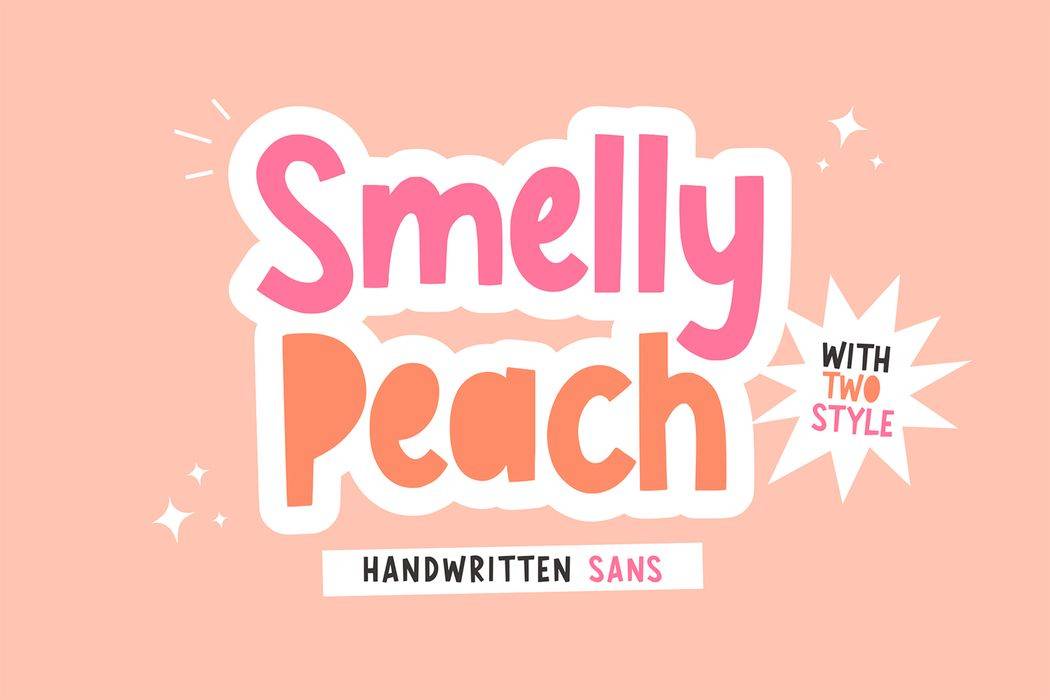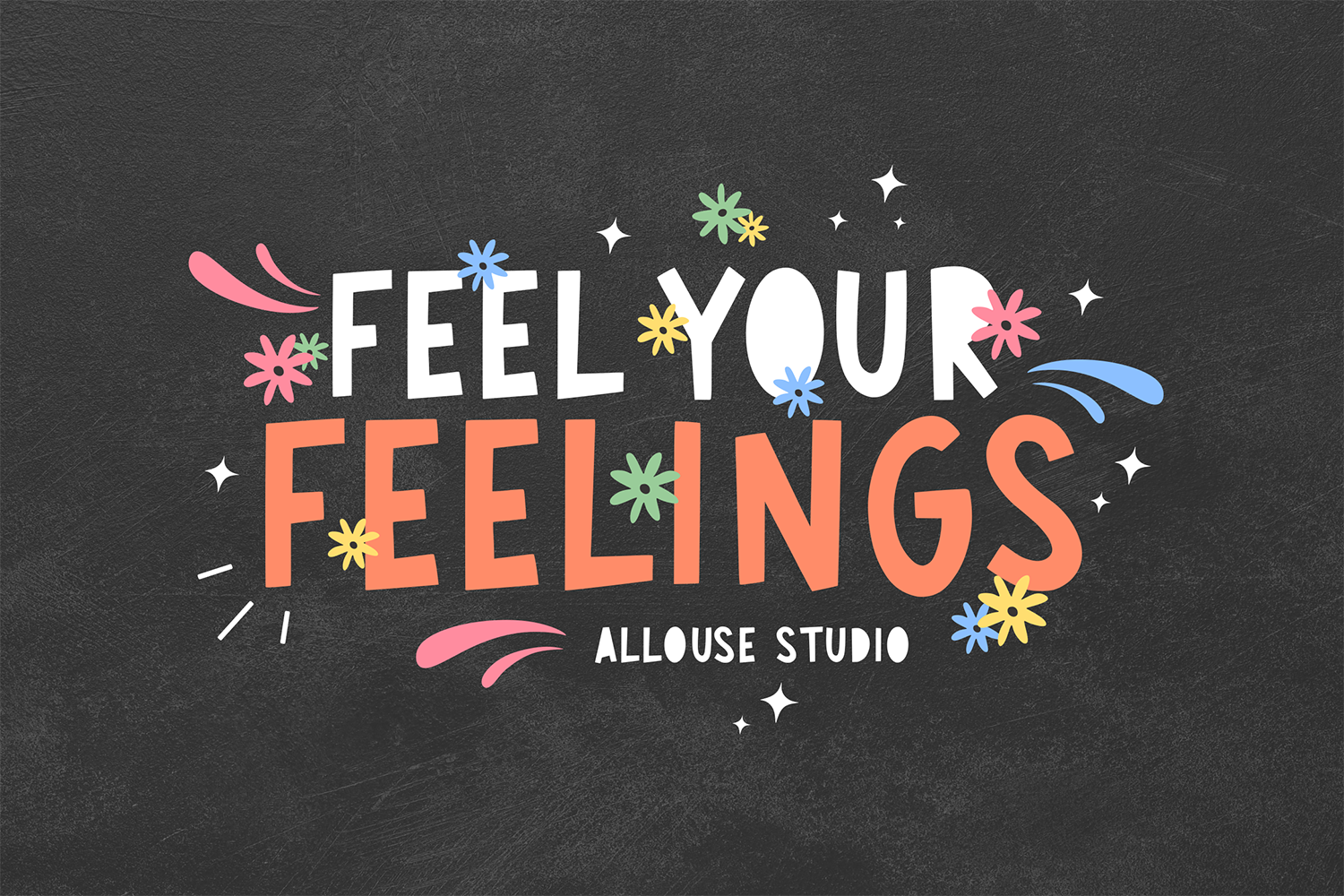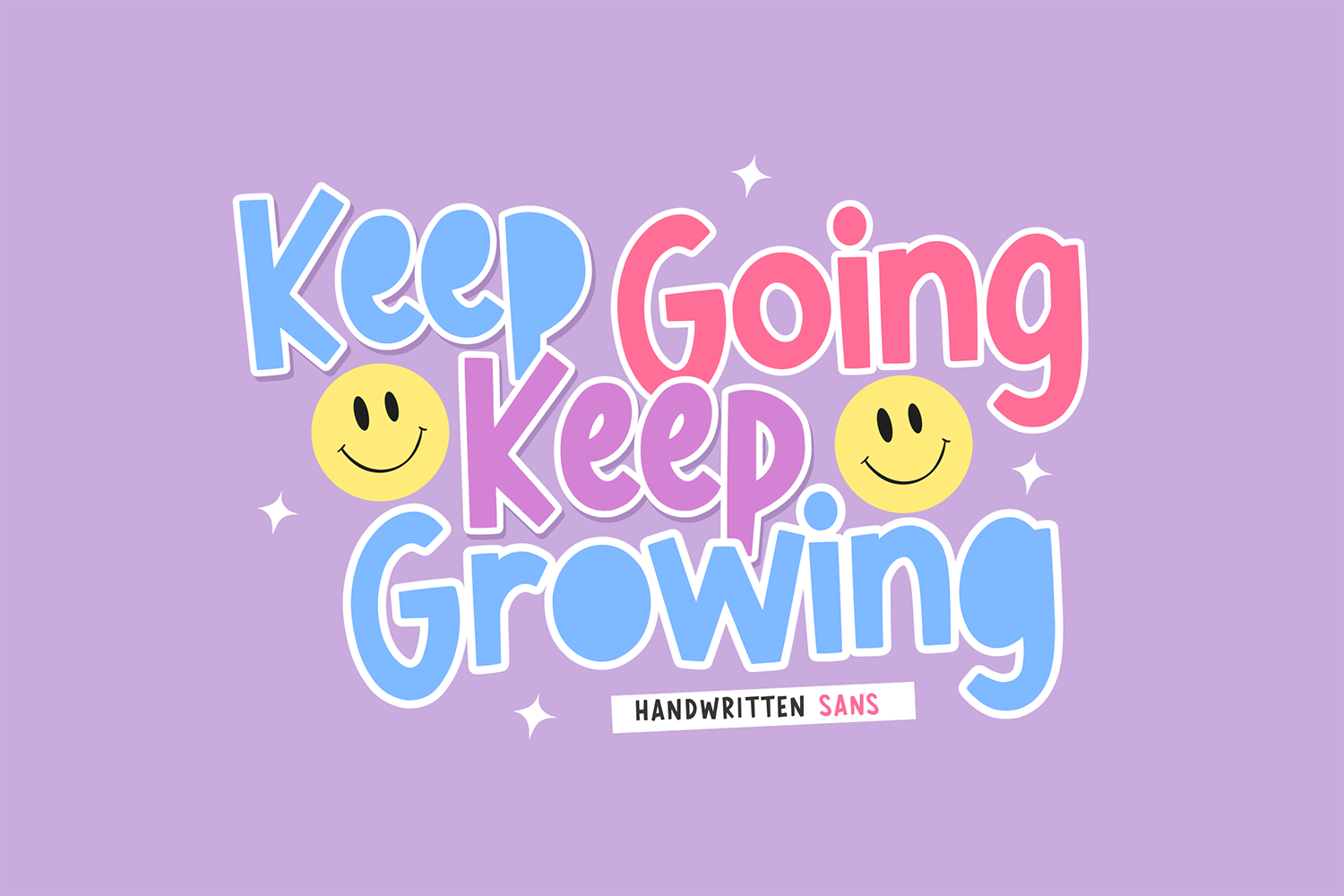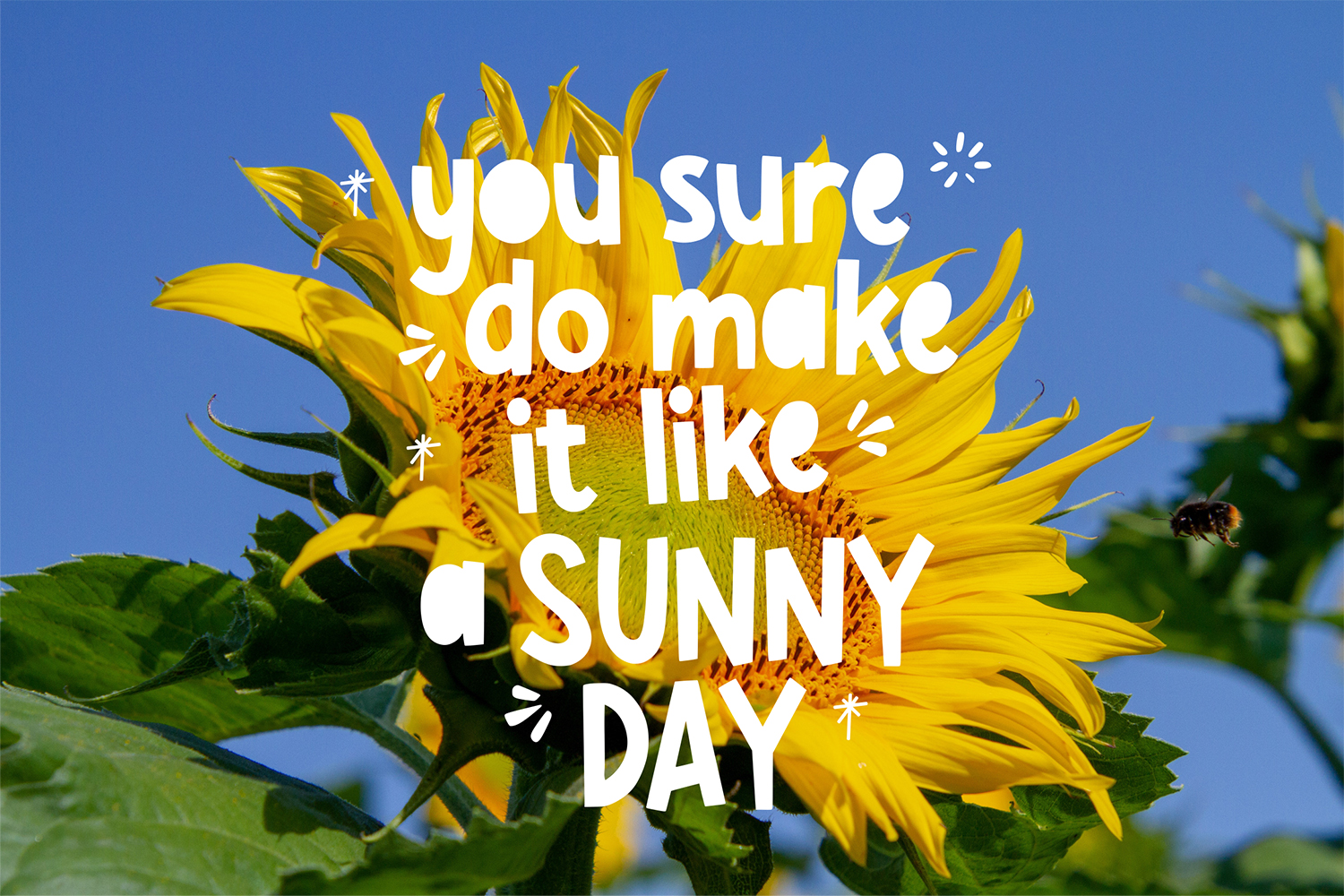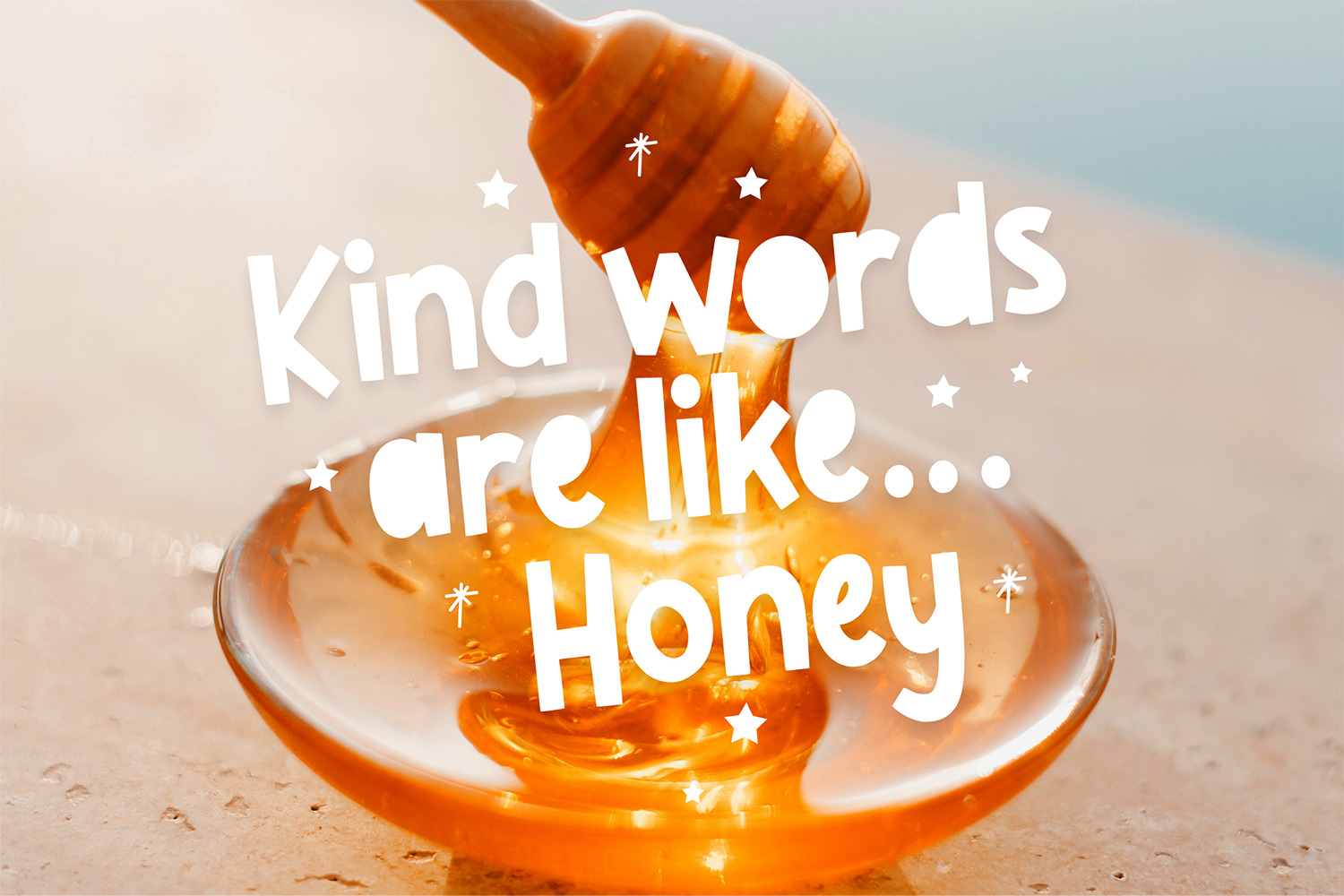
Smelly Peach Blocky is a playful and bold sans serif font with a quirky, hand-drawn feel, featuring uneven, chunky letterforms that add a sense of fun and approachability. Its thick weight, slightly condensed width, and irregular shapes make it ideal for eye-catching headlines, children's projects, and casual branding that wants to convey creativity and friendliness. This font works best in contexts where a lively, informal tone is desired, such as posters, packaging, and social media graphics.
Smelly Peach Font
About Smelly Peach Font